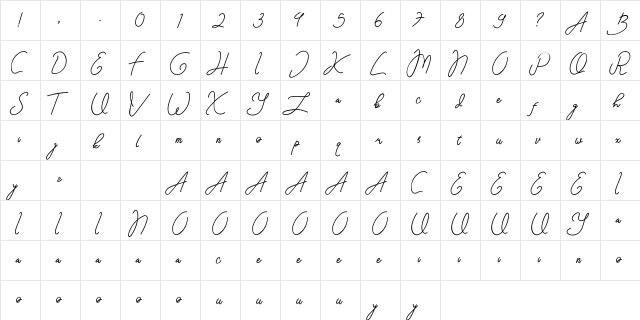
SanttyVelvethiaDemo Regular
| Foundry | Faceless Creative |
| Designer | Rizki Ali Khoir |
Design Context for SanttyVelvethiaDemo Typeface
SanttyVelvethiaDemo is a composed and adaptable typeface that performs quietly and consistently across a wide range of design contexts.